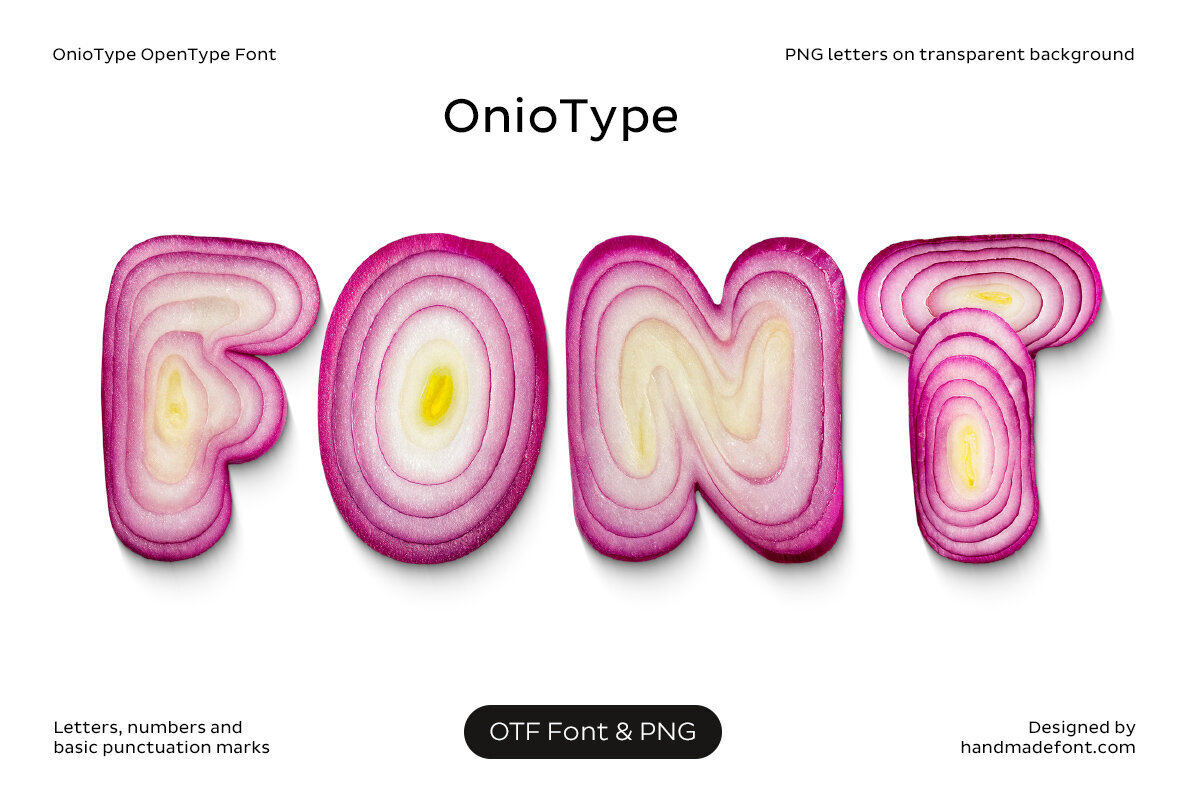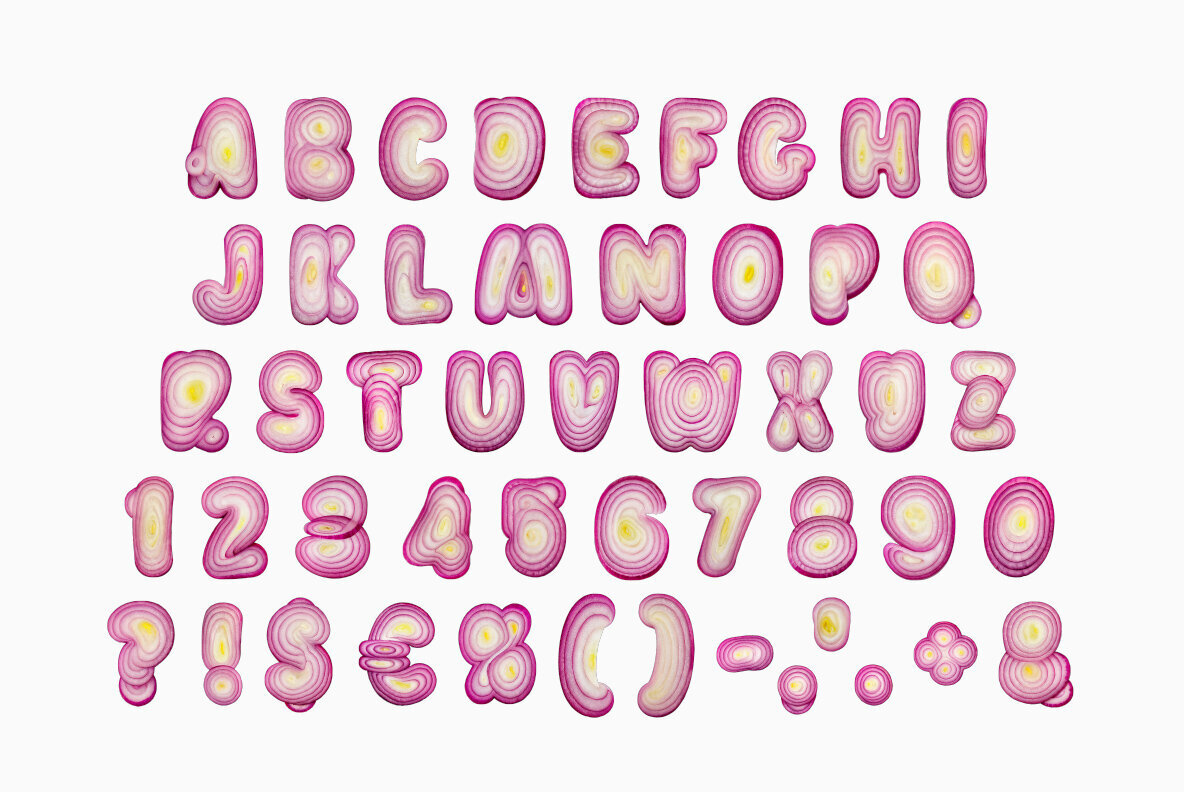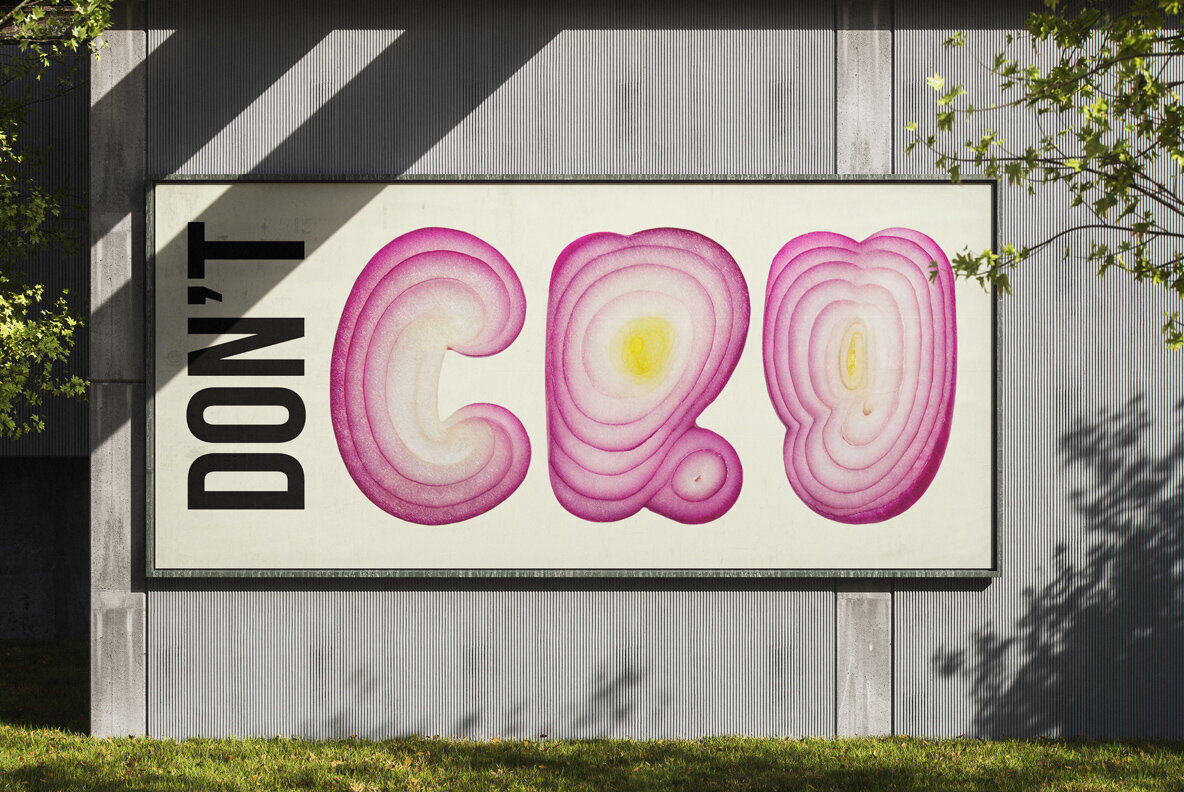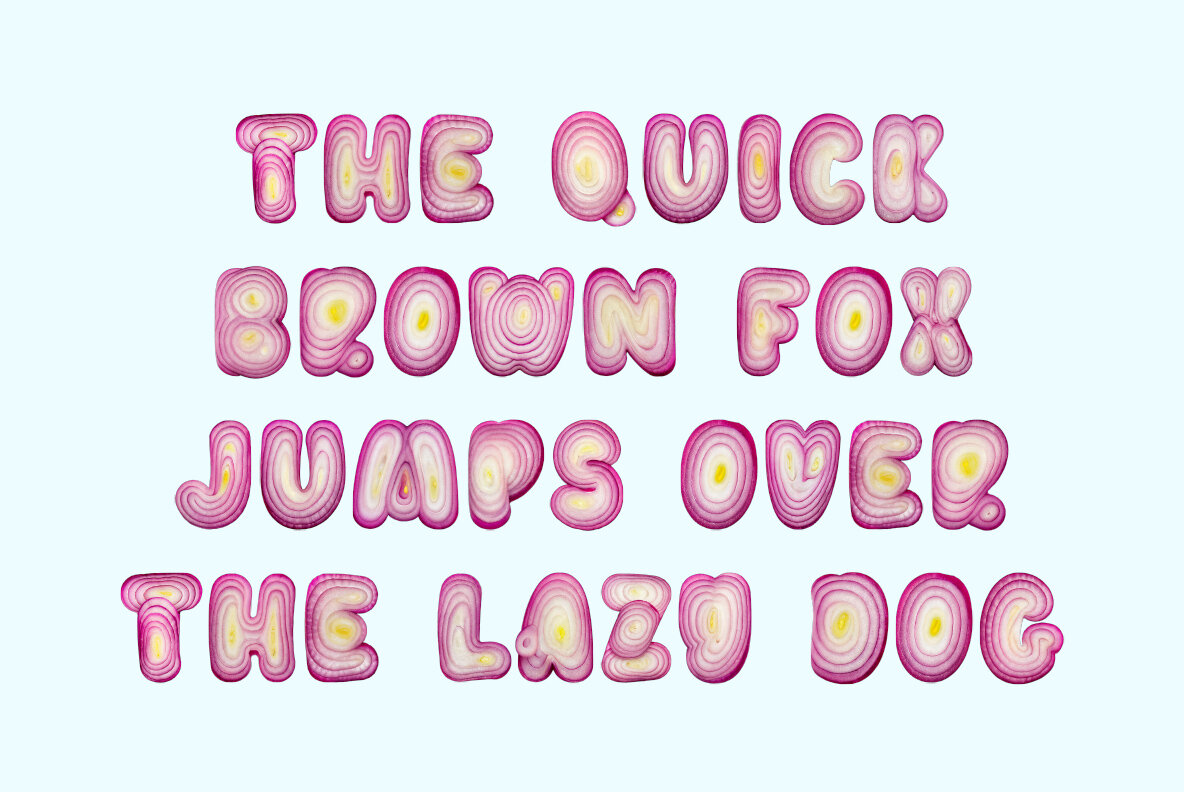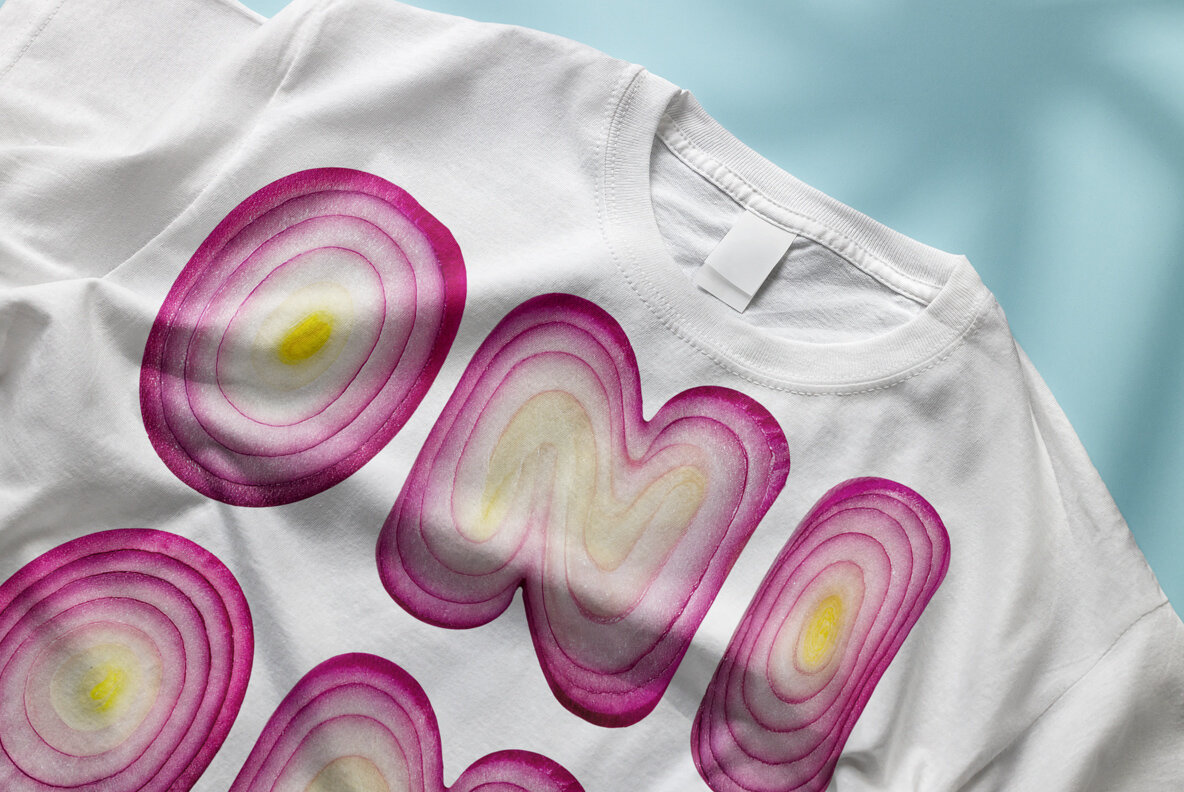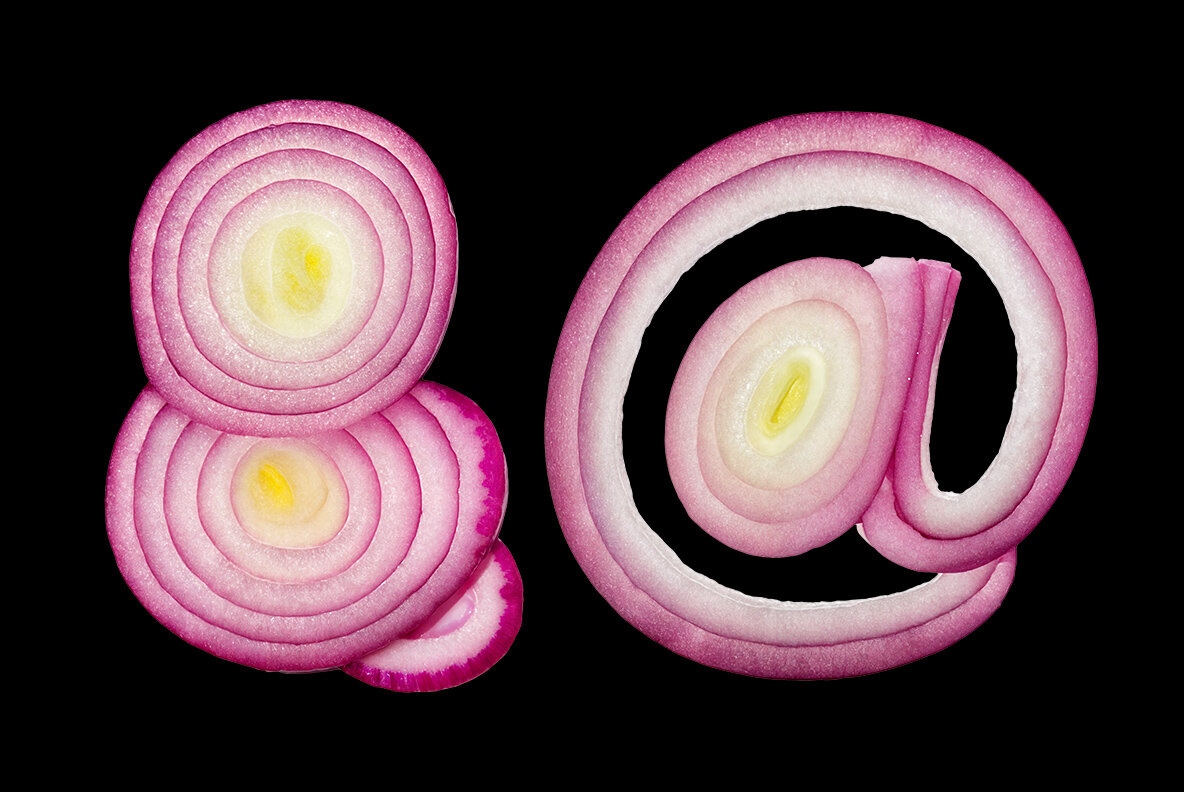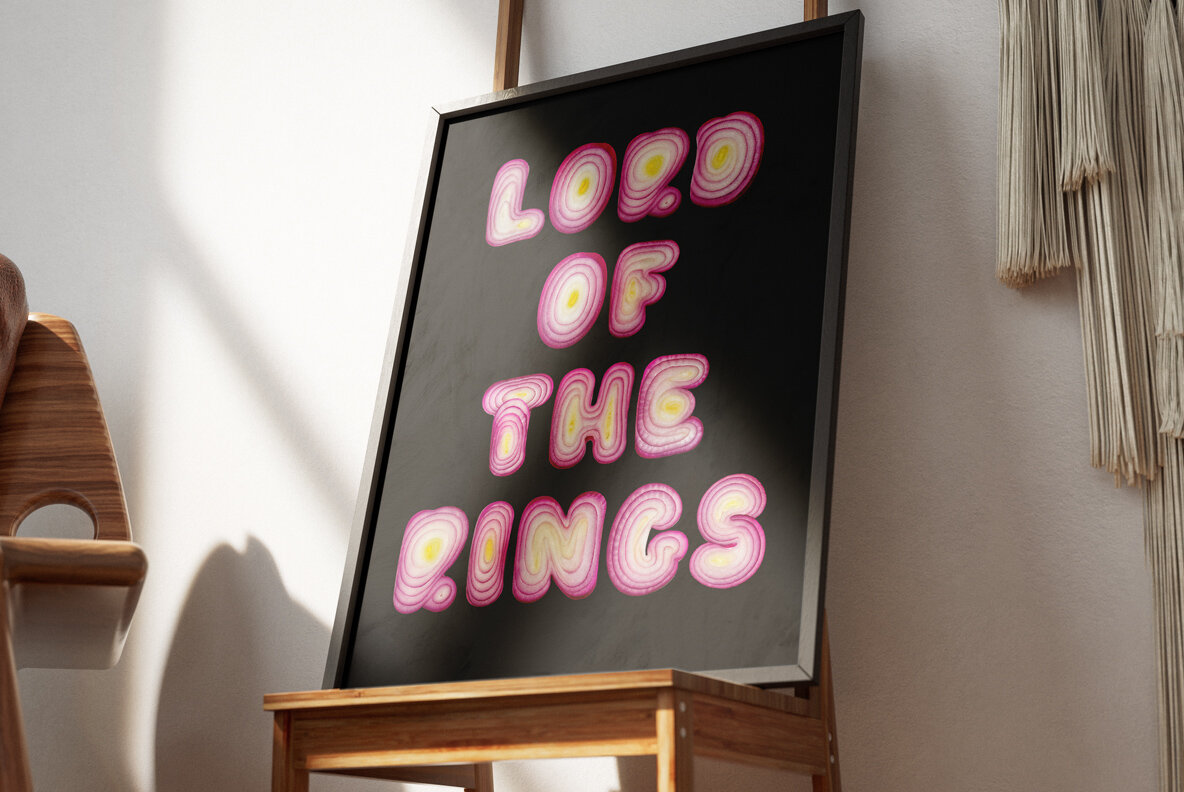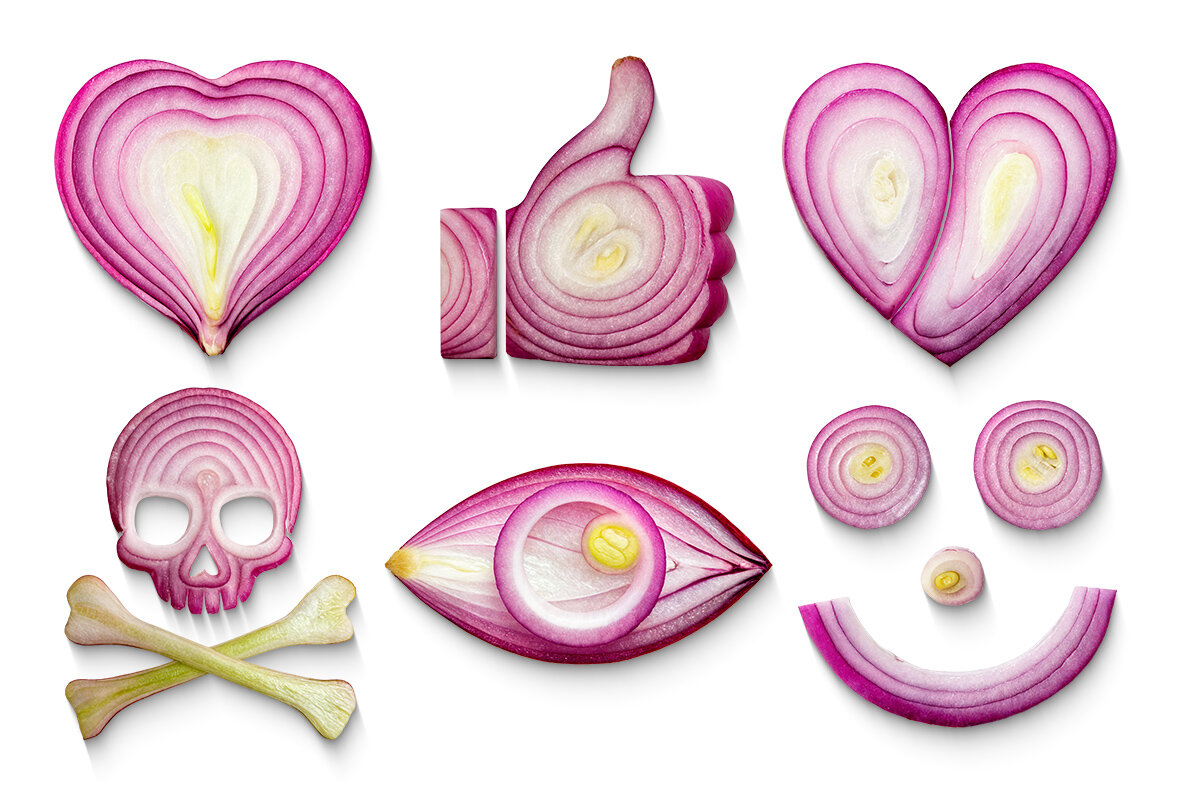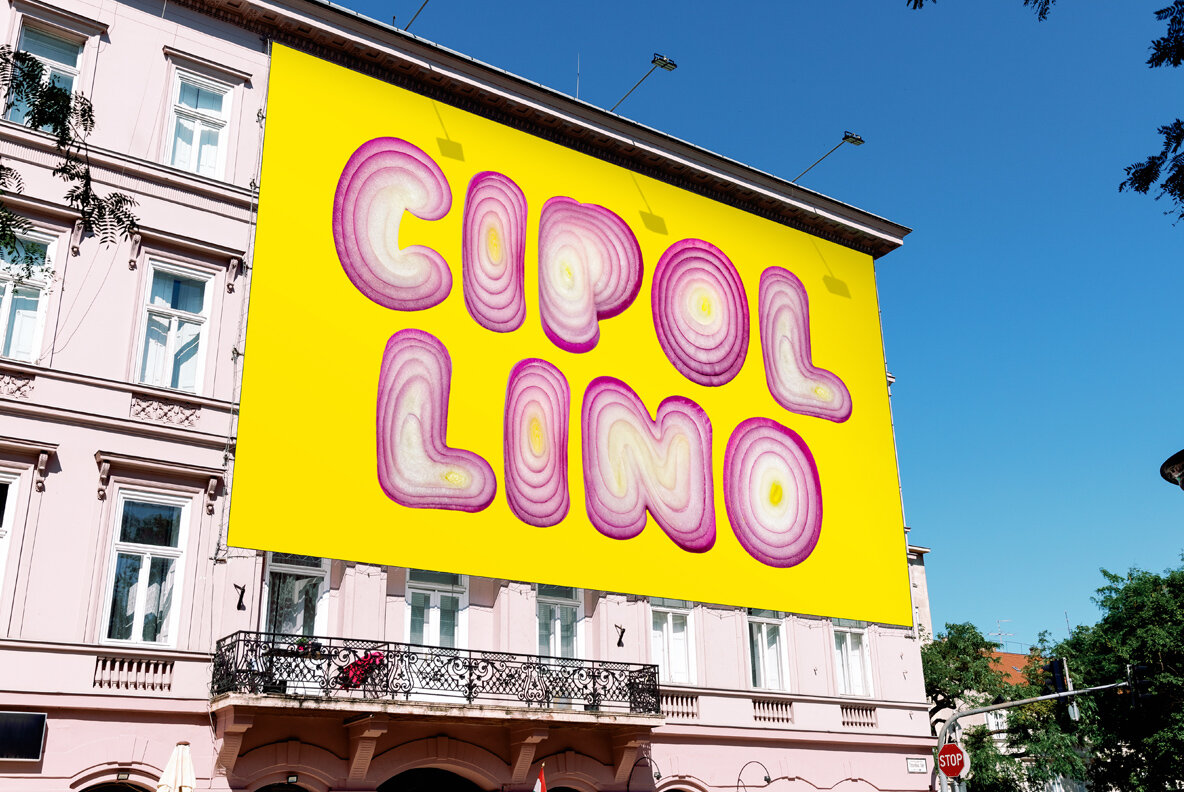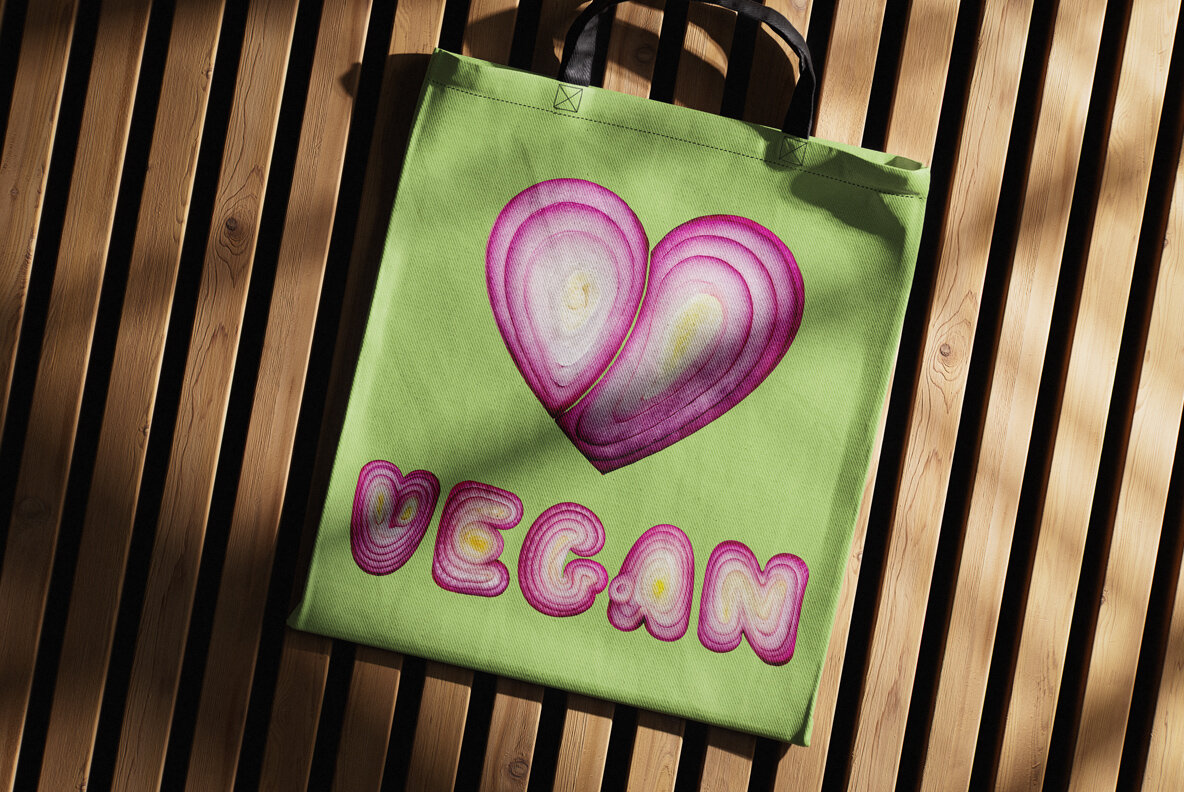
OnioType Font peels back the layers of conventional design. Crafted from real slices of red onion, each letter showcases the vegetable’s natural rings, echoing the soft curves and bold lines of playful typography. With vibrant purples, creamy whites, and touches of yellow at its core, this font is juicy with personality. It’s where food styling meets type design—unexpected, fresh, and slightly cheeky. Perfect for culinary branding, organic product packaging, or anyone who likes their fonts with flavor. OnioType proves that typography doesn’t have to be dry—it can be raw, ripe, and totally eye-watering (in the best way). A high definition OpenType Font. Contains uppercase characters, numerals and basic punctuation. (Draw height roughly 800 pixels). All letters and glyphs that comprises this font you can see on the preview. The font is a colour OpenType file which means this font will show up only in apps that are compatible with color bitmap fonts. Now that OpenType-SVG has been adopted as the industry standard, there is good chance that you can start using color fonts across your favorite software and hardware (Photoshop, Illustrator, InDesign, QuarkXPress, Keynote, PowerPoint, Word etc.) However all characters are also included as individual .png files which can be opened in any graphics software. Each letter comes as a separate PNG file on a transparent background. Each image has the high resolution size of 4000x4000px. This downloadable package contains 66 files. Letters : A B C D E F G H I J K L M N O P Q R S T U V W X Y Z Punctuation and Language Support. Due to the large nature of OpenType-SVG fonts, extended punctuation and language support are not included in the font files. However all punctuation characters and the following accents are included as individual image files in the .png letter set, which can be manually added to your text.